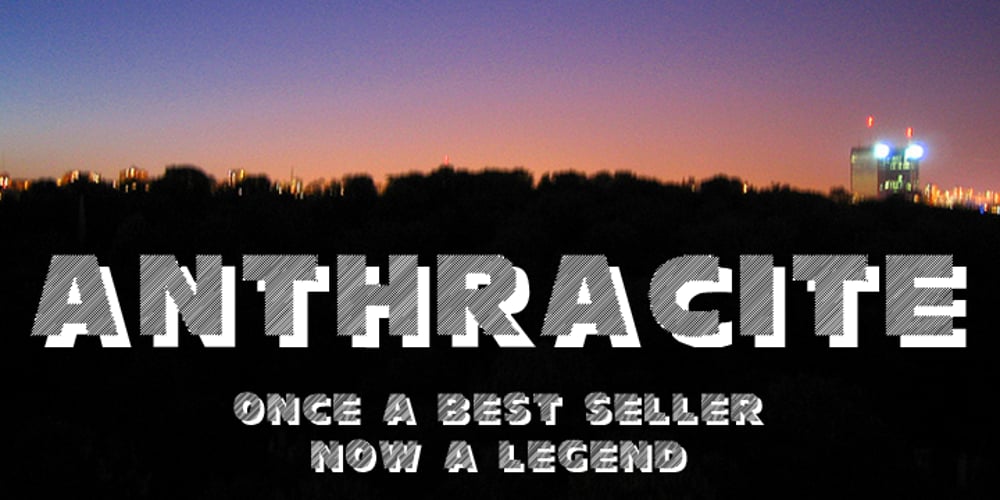
Anthracite Font Family was designed by Fabrice Ducouret and published by Fabulous Rice. Anthracite contains 1 styles and family package options. A title is something strong. Something that leaves its mark through time, in the memories and in the hearts. A title tells things about the content, its purpose, its meaning, its point. For your needs in strong titlecase letters comes Anthracite. Looking almost like they were carved out of raw wood in the 1820s, the letters of Anthracite will not only imprint well but they will also impress. Its carving gives a feeling of relief, or shades, of textures that will be unique every time you use it. The perfect font if you want to stand out and be read.